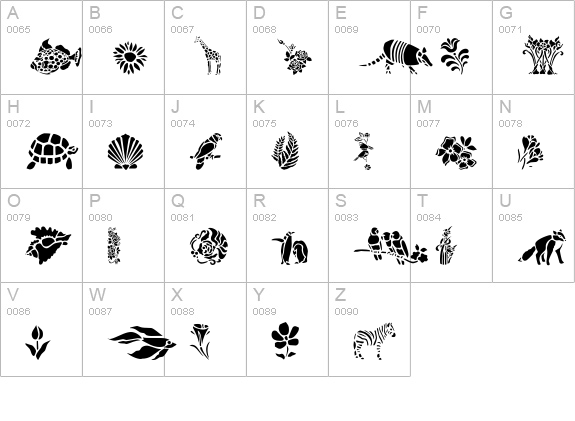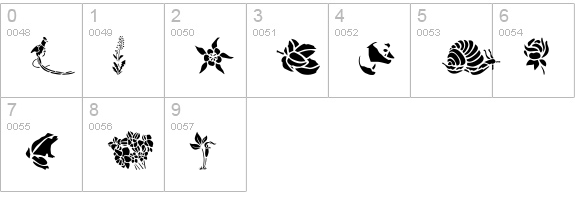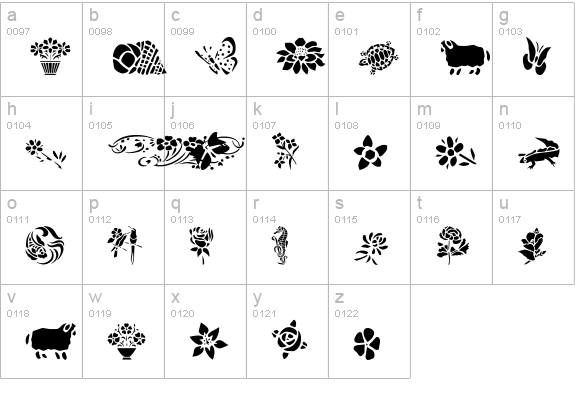
GE Elements of Nature II Font Details
The GE Elements of Nature II font is a stunning display font that brings an organic and elemental touch to your designs. With its intricate details and natural inspiration, this font is perfect for adding a unique and artistic flair to your projects. The elegant curves and botanical motifs of this font evoke a sense of harmony and beauty, making it a versatile choice for a wide range of design applications. Best of all, the GE Elements of Nature II font is available for free download at FontsMarket.com. Whether you're working on branding, packaging, or any other creative project, this font will elevate your designs with its distinctive style and artistic charm. Don't miss out on this opportunity to enhance your work with the enchanting beauty of the GE Elements of Nature II font. Download it today and let your creativity flourish!